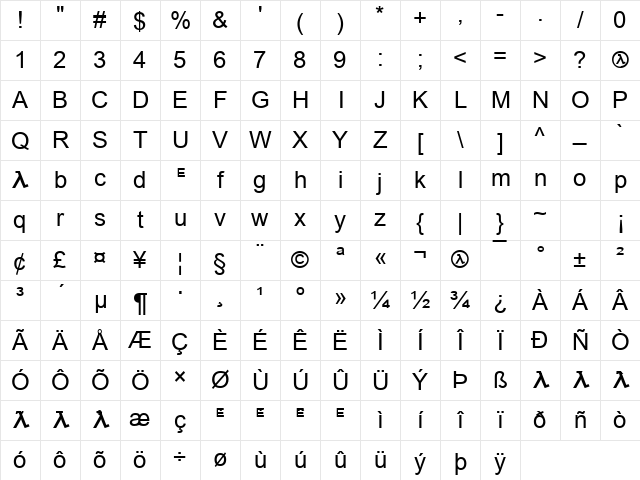
HalfLife Regular
Design Context for HalfLife
HalfLife is a composed and adaptable typeface that performs quietly and consistently across a wide range of design contexts.